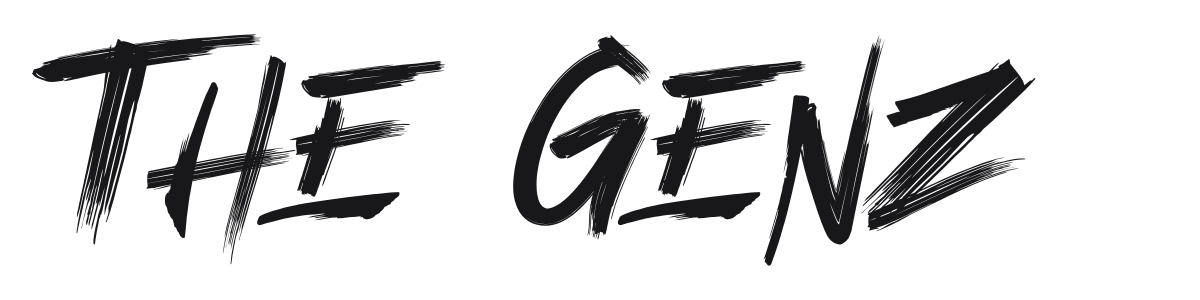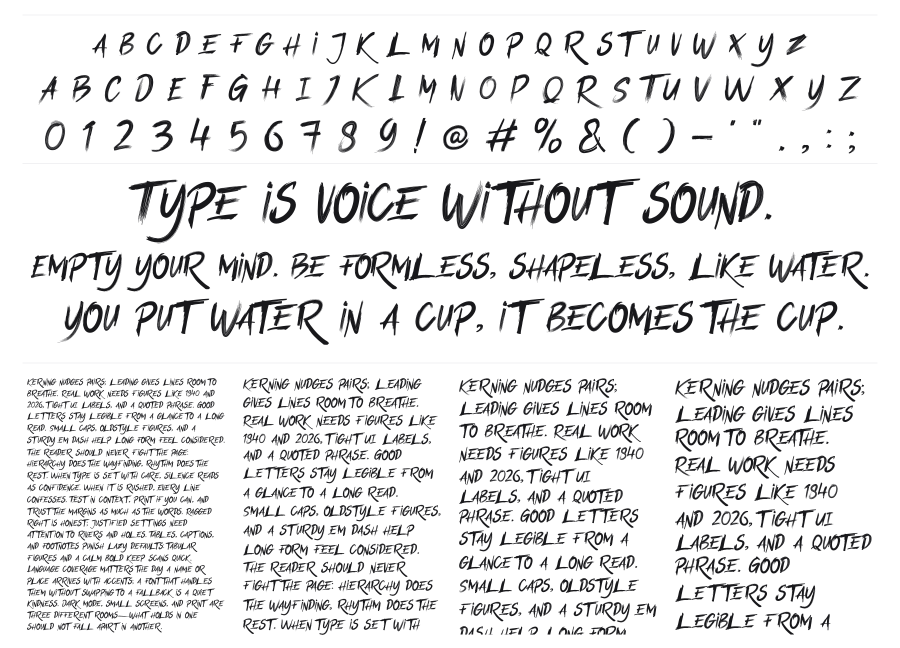
The Genz
The Genz is a bold, textured brush script built on fast, gestural strokes with visible bristle marks and ink variation. It captures the raw energy of street-art hand-lettering, where thick and thin strokes collide without apology. A natural pick for anything aimed at a young, urban, or counterculture audience.